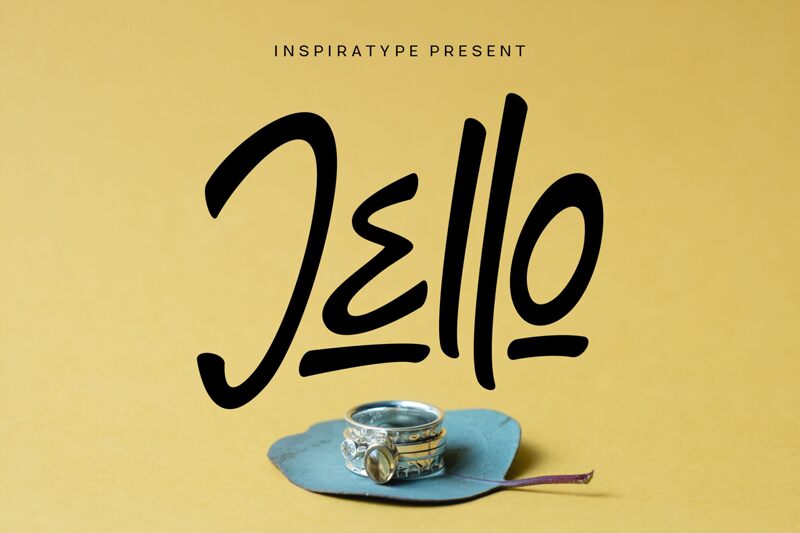
"Jello" is a font display is made by hand, inspired by classic posters.
comes with uppercase, lowercase, numerals, punctuations and so many variations on each character include OpenType alternates, common ligatures and also additional swash to let you customize your designs. Perfect to use for Logotype, Letterhead, Poster, Apparel Design, Label and etc.